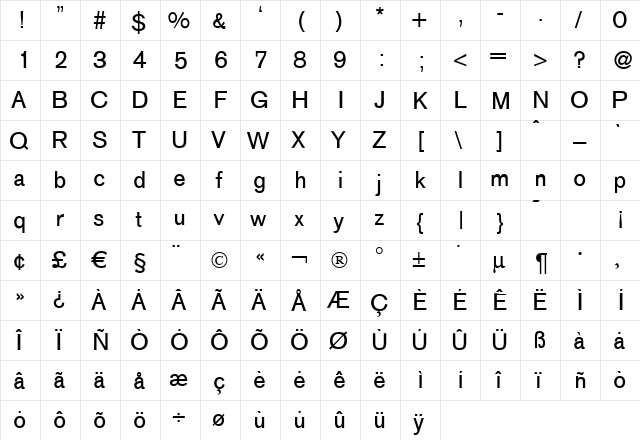
A750-Sans-Oldface Regular
Design Context for A750-Sans-Oldface Typeface
A750-Sans-Oldface is a composed and adaptable typeface that performs quietly and consistently across a wide range of design contexts.